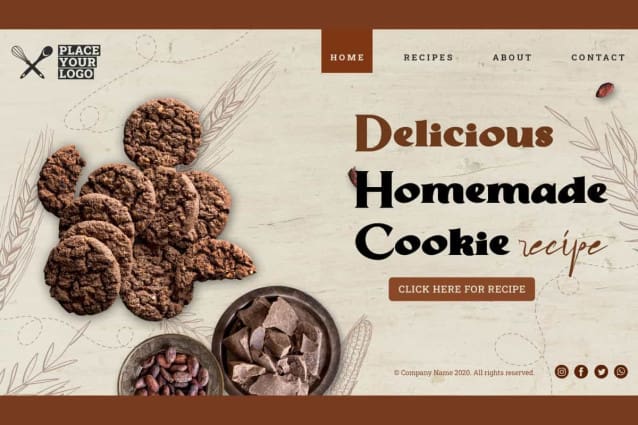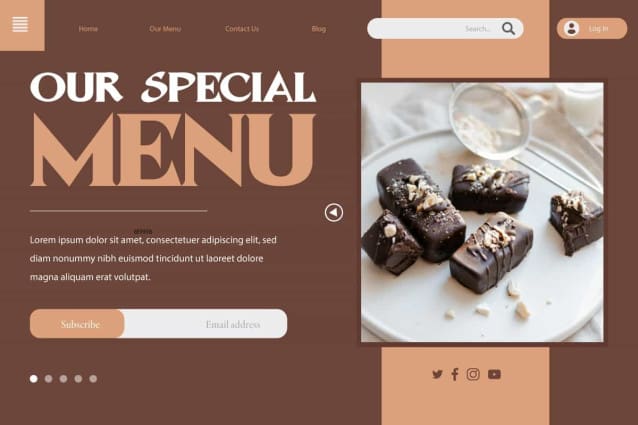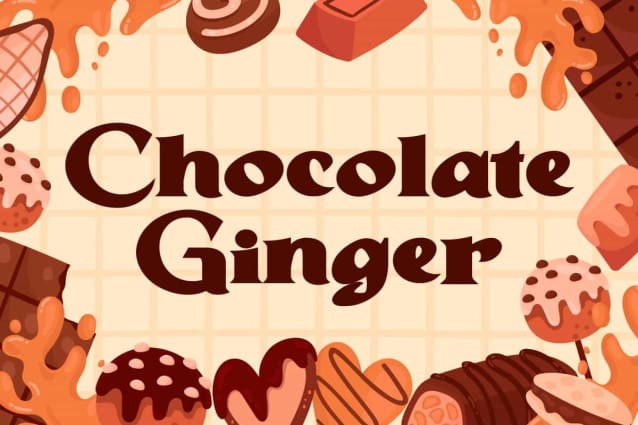
Chocolate Ginger Font
Chocolate Ginger Font is a classic, bold and playful display font with the serif typeface. This font will stand out in any design because it is bold and easy to read. It would be good for brand logo, custom design, invitation, magazine cover, menu, poster, product packaging, screen print, signage, social media posts, stationery, sticker, website, and more!
Chocolate Ginger Font includes full set for Uppercase and Lowercase Basic Characters, Numbers, Punctuation and Symbols. This font will create the perfect font so that it will be suitable for advertisement, bakery, beauty product, cafe, crafts, event or wedding organizer, fashion, photography, restaurant, spa, travel agency, etc.